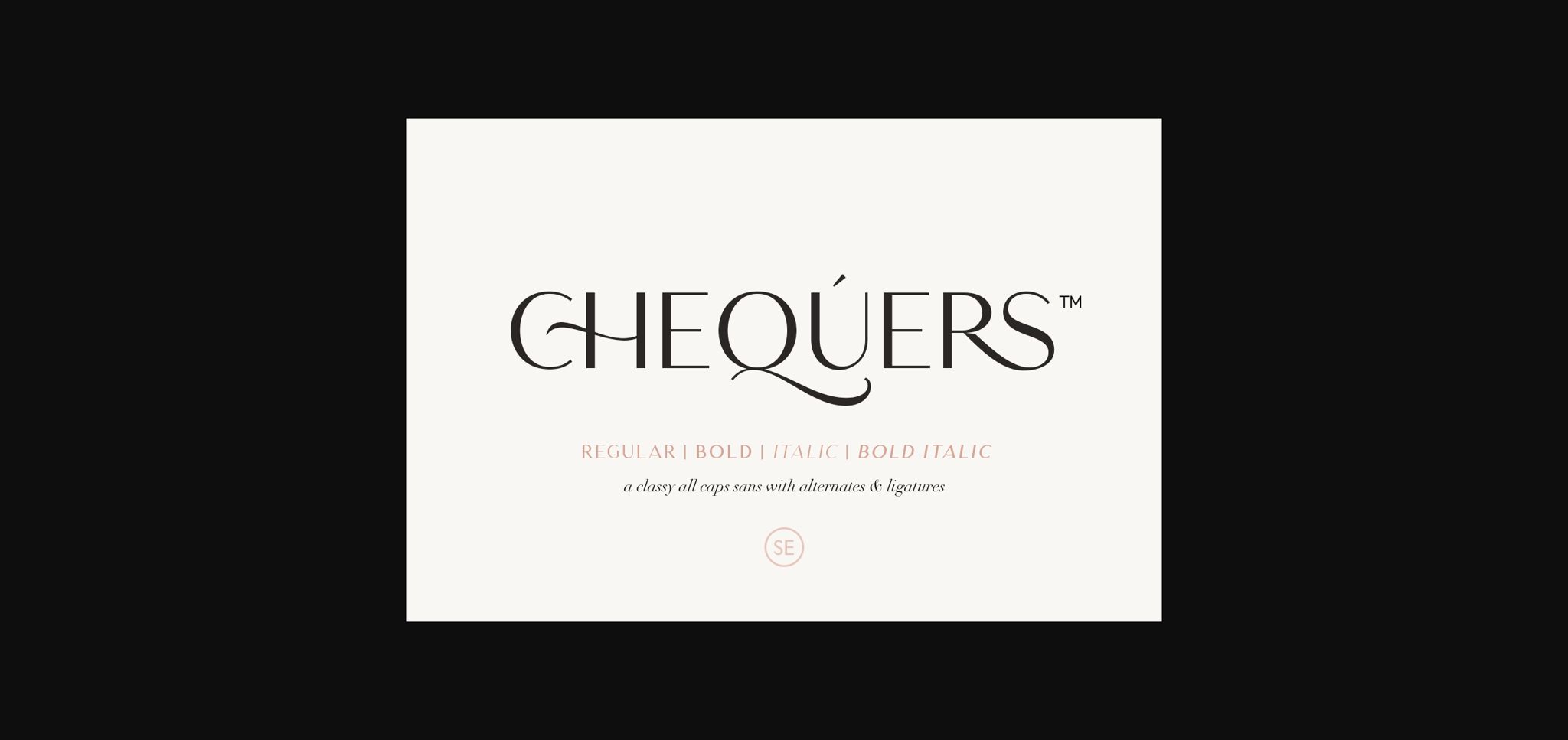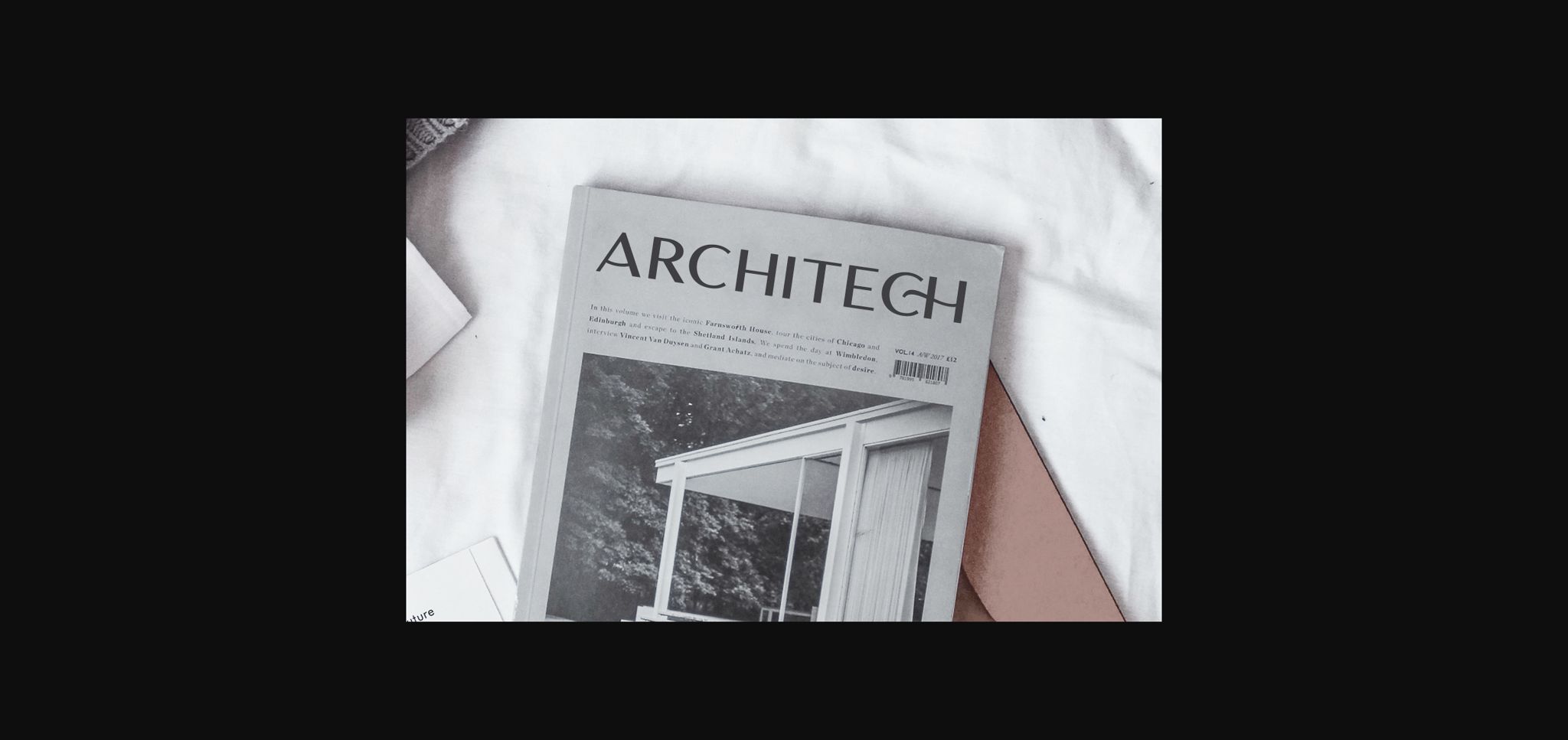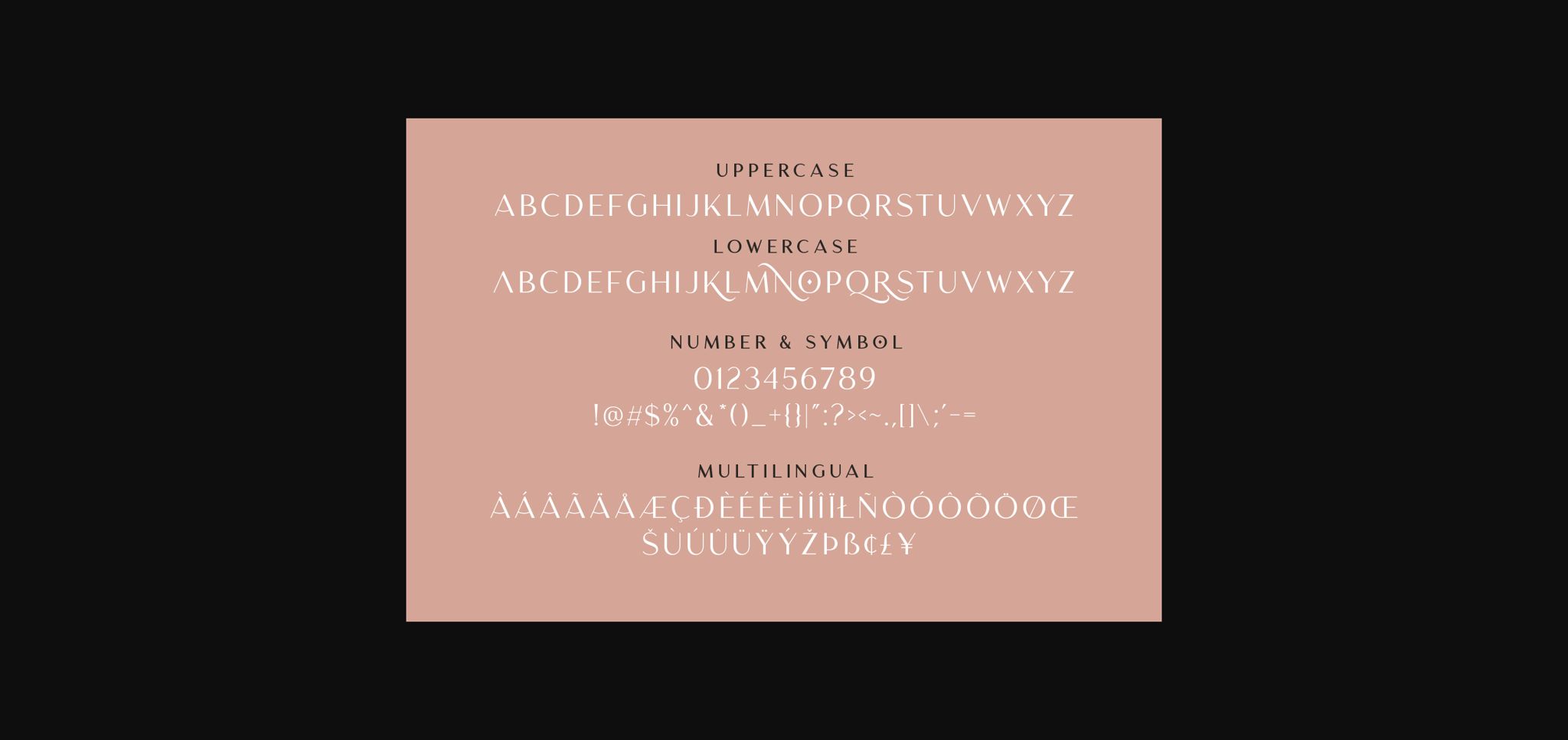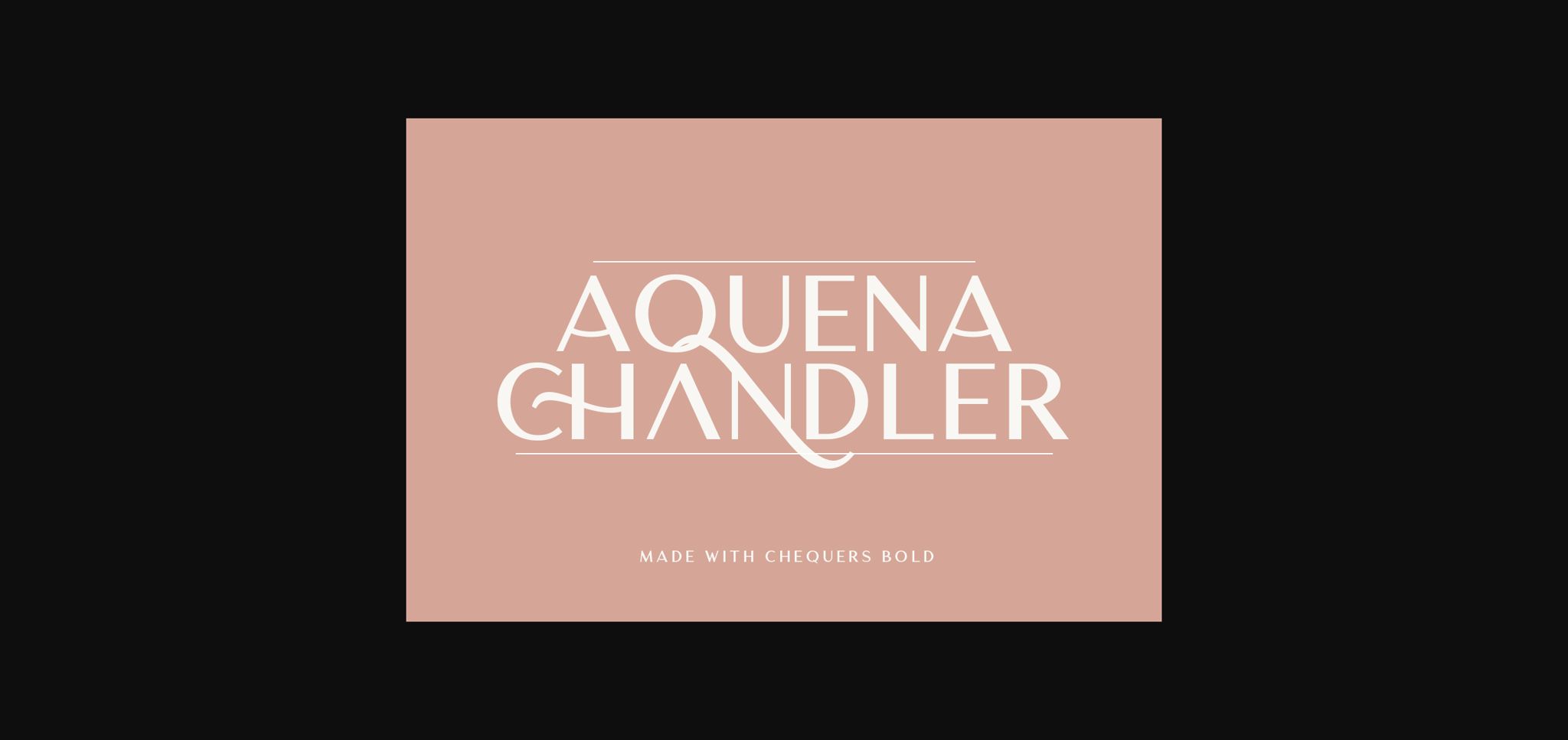
Chequers Font
About Chequers Font
Chequers is a classic and modern sans serif font. This font contains a bunch of essential ligatures that will make your presentation or logo even more stunning and stand out!